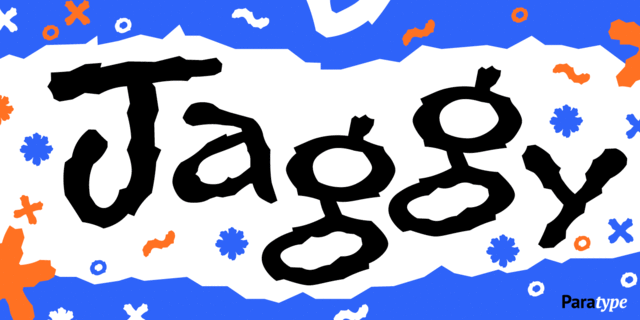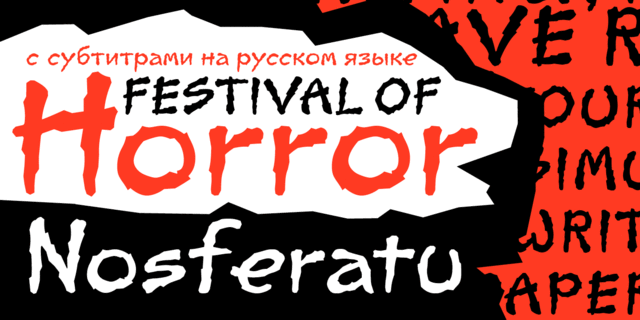
About JaggyThe script, based on informal handwriting, was designed for ParaType in 2006 by Isabella Chaeva. Its characters have rough jaggy contour. Being used in small sizes, the face simulates an effect of handwriting by felted pen on rough paper. Works well for advertising and display typography.
Associations for font family JaggyTypeface personality and character:
sharp, thorny, rough, wild, peppered, informal, cheerful, frivolous, slovenly, mischievous, funny, animal, cartoonish, home, summer, careless, quick, vernacular, dynamic, nervous